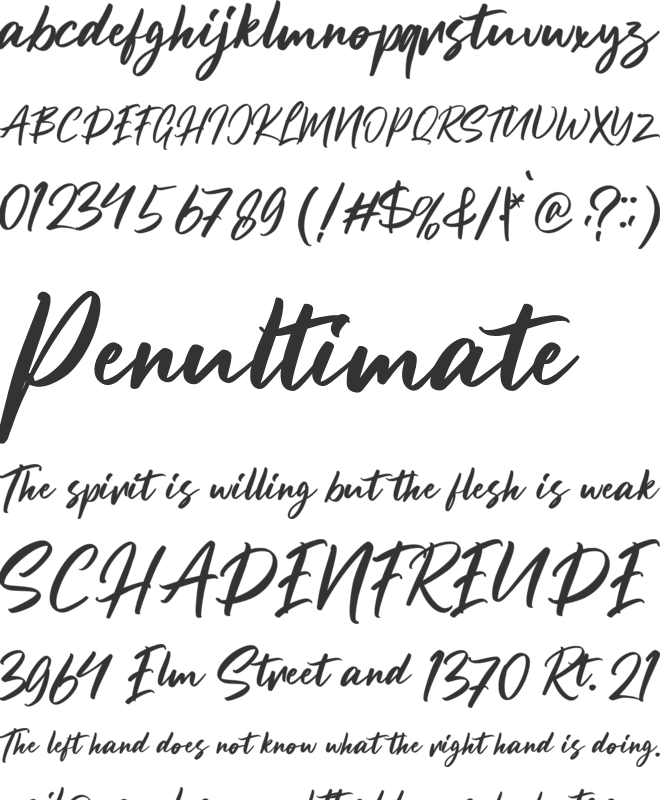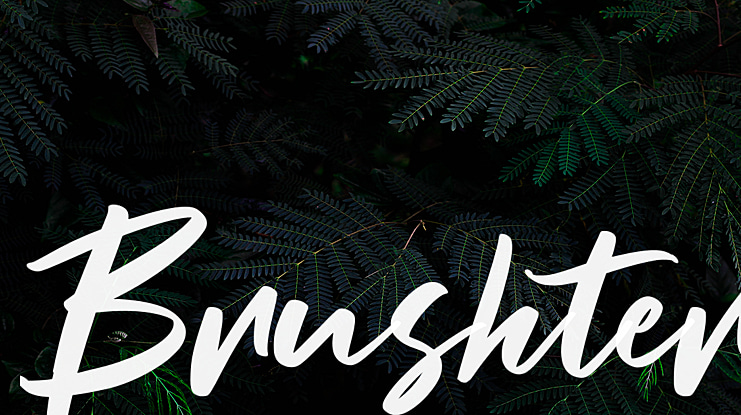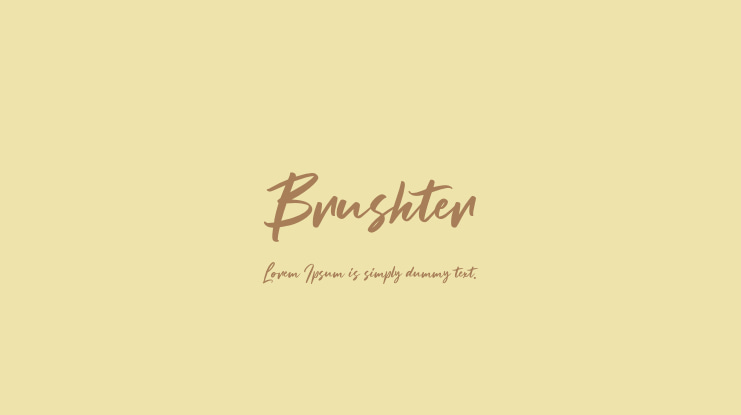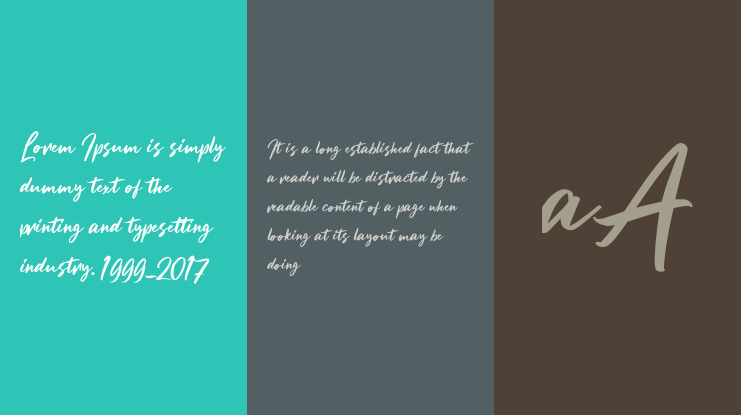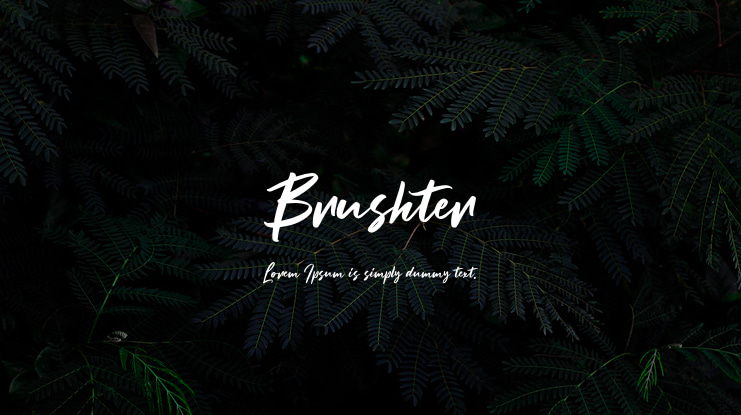
Brushter Font
Candra Hamdani
This enchanting font will turn any creative idea into a true standout. Perfect fit for all of your logos, branding, social media, etc. Get creative with its unique playfulness, and use it to brighten up any crafting project!